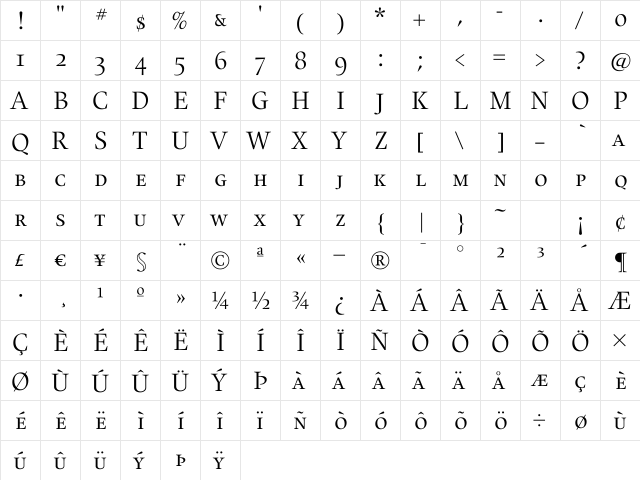
Alias UnionSC Regular Regular
Design Context for Alias UnionSC Regular Typeface
Alias UnionSC Regular is a composed and adaptable typeface that performs quietly and consistently across a wide range of design contexts.